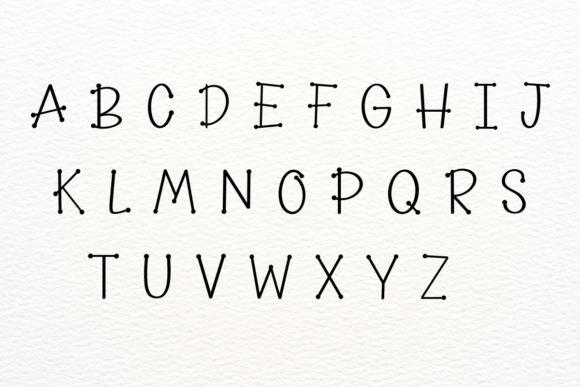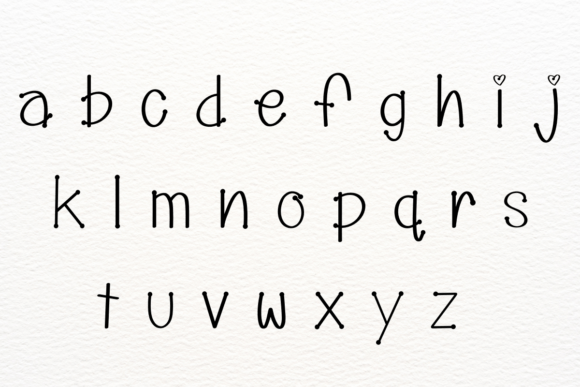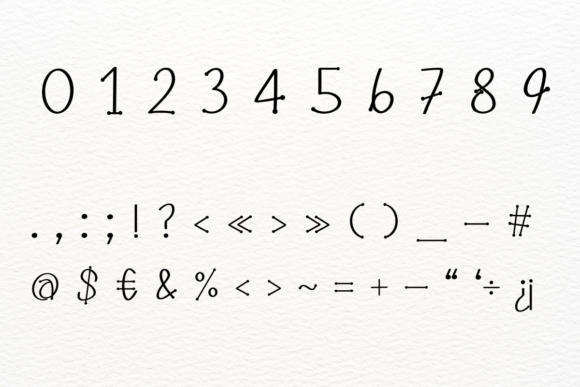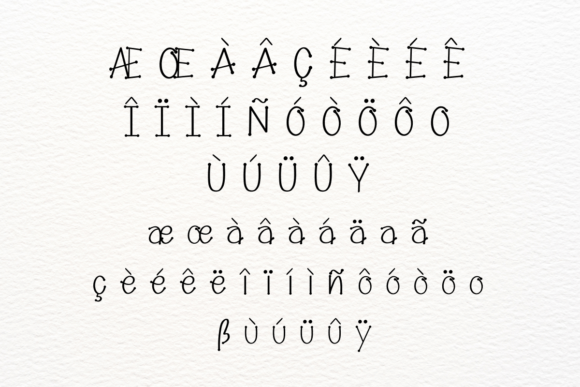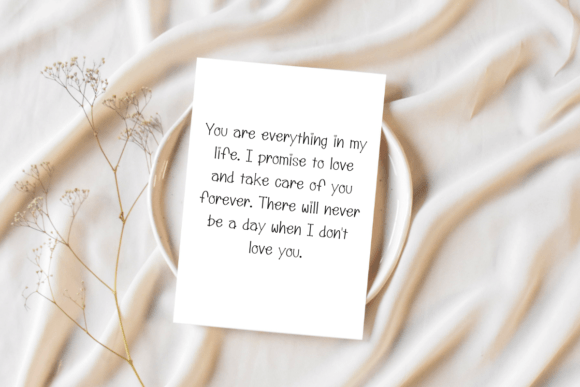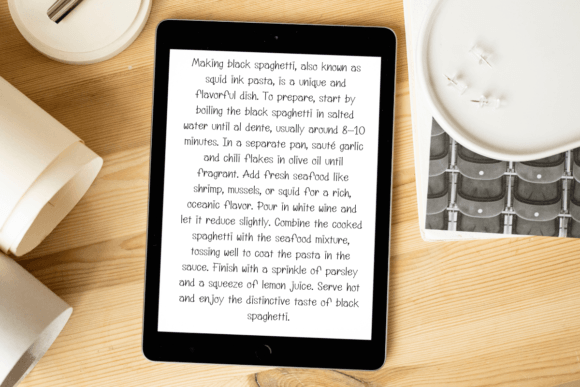
Abbie Font: The Perfect Choice for Your Next Crafting Project
Are you a designer or crafter looking for a font that can add a touch of playfulness and cuteness to your next project? Look no further than Abbie Font! Designed in a cut and playful Sans serif style, Abbie is the perfect choice for a variety of projects, from cards and invitations to wedding parties and baby showers.
What is Abbie Font?
Abbie Font is a Sans serif font that is designed to be both modern and playful. Its clean lines and simple shapes make it easy to read and perfect for a variety of projects. The font is designed to be versatile, making it suitable for both digital and print projects.
Characteristics of Abbie Font
Abbie Font has several characteristics that make it stand out from other fonts. Some of its key features include:
- Cut and Playful Style: Abbie Font has a cut and playful style that makes it perfect for projects that require a touch of whimsy.
- Sans Serif: The font is Sans serif, making it clean and easy to read.
- Versatile: Abbie Font is versatile and can be used for a variety of projects, from digital to print.
Abbie Font is perfect for a variety of projects, including:
- Cards and Invitations: Abbie Font is perfect for creating cards and invitations for special occasions, such as birthdays, anniversaries, and holidays.
- Wedding Parties: The font is a great choice for wedding parties, including wedding invitations, programs, and signage.
- Baby Showers: Abbie Font is also perfect for baby showers, including invitations, decorations, and gifts.
- Birthdays: The font is great for birthday parties, including invitations, decorations, and gifts.
- Anniversaries: Abbie Font is a great choice for anniversary celebrations, including invitations, decorations, and gifts.
- Back to School: The font is perfect for back to school projects, including invitations, decorations, and gifts.
- Fall and Halloween: Abbie Font is also great for fall and Halloween projects, including invitations, decorations, and gifts.
Why Choose Abbie Font?
There are many reasons why you should choose Abbie Font for your next project. Some of the benefits of using Abbie Font include:
- Cute and Playful: Abbie Font is a cute and playful font that can add a touch of whimsy to your project.
- Easy to Read: The font is easy to read, making it perfect for projects that require a clear and concise message.
- Versatile: Abbie Font is versatile and can be used for a variety of projects, from digital to print.
- Modern and Fresh: The font has a modern and fresh feel, making it perfect for projects that require a contemporary look.
Tips for Using Abbie Font
Here are some tips for using Abbie Font in your next project:
- Use it for Headings: Abbie Font is perfect for headings and titles, making it a great choice for projects that require a bold and playful look.
- Pair it with Other Fonts: The font can be paired with other fonts to create a unique and interesting look.
- Experiment with Colors: Abbie Font can be used with a variety of colors, making it perfect for projects that require a pop of color.
Abbie Font is a versatile and playful font that is perfect for a variety of projects. Its cut and playful Sans serif style makes it a great choice for designers and crafters who want to add a touch of whimsy to their next project. Whether you’re creating cards, invitations, or other projects, Abbie Font is a great choice. So why not give it a try and add some cute to your next project with Abbie Font?